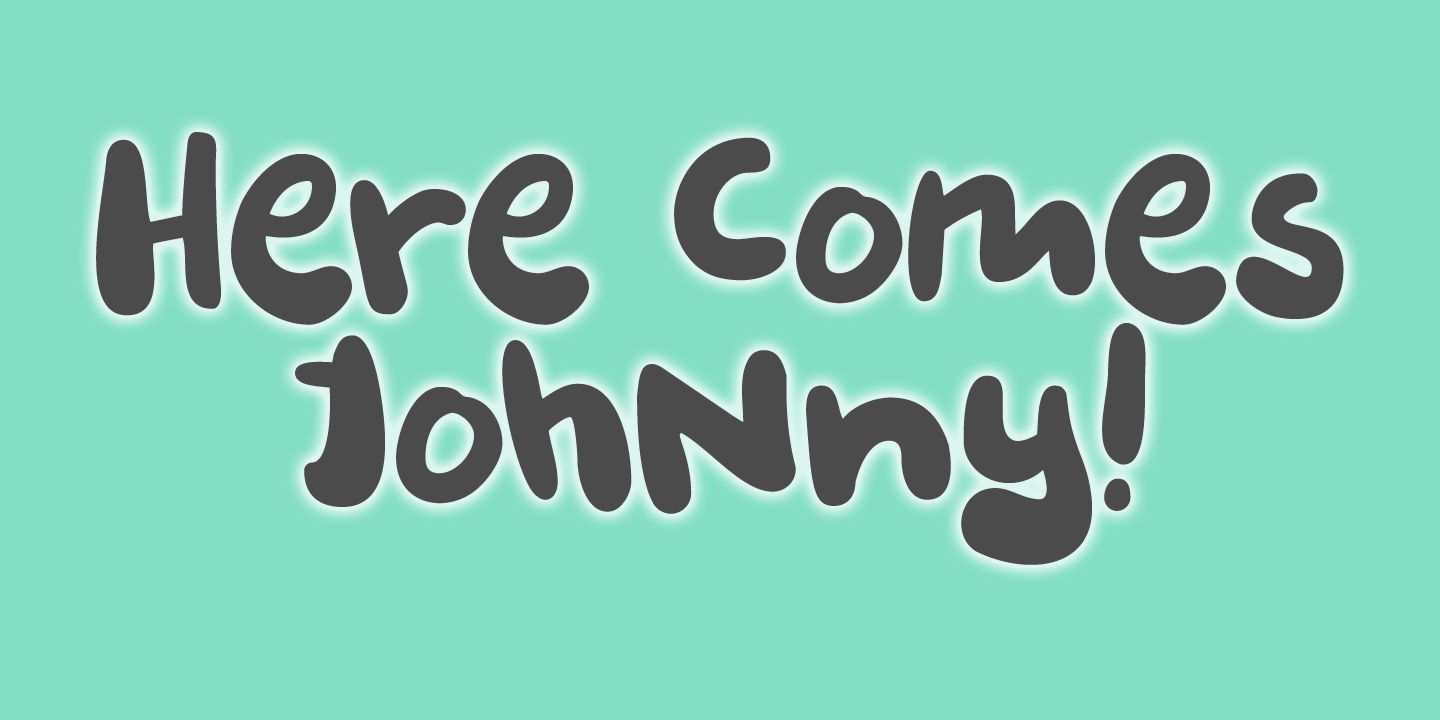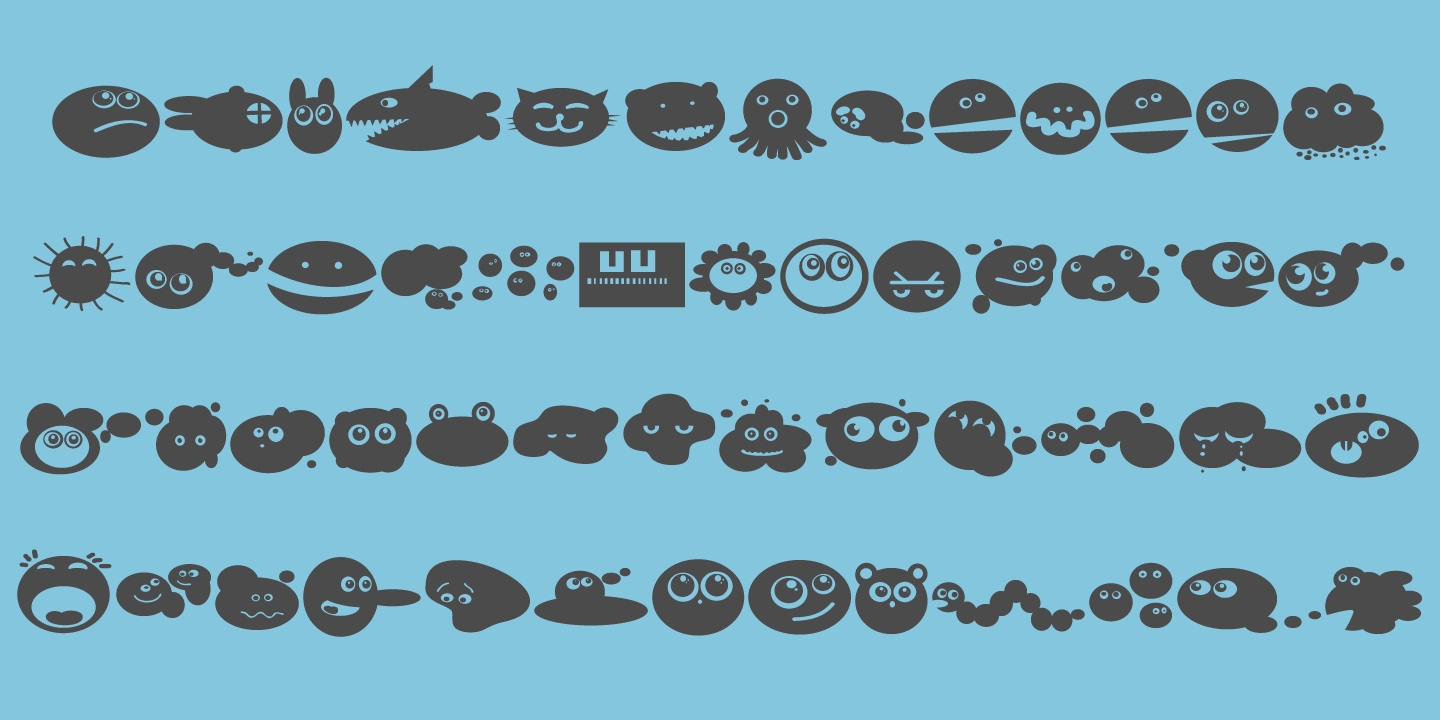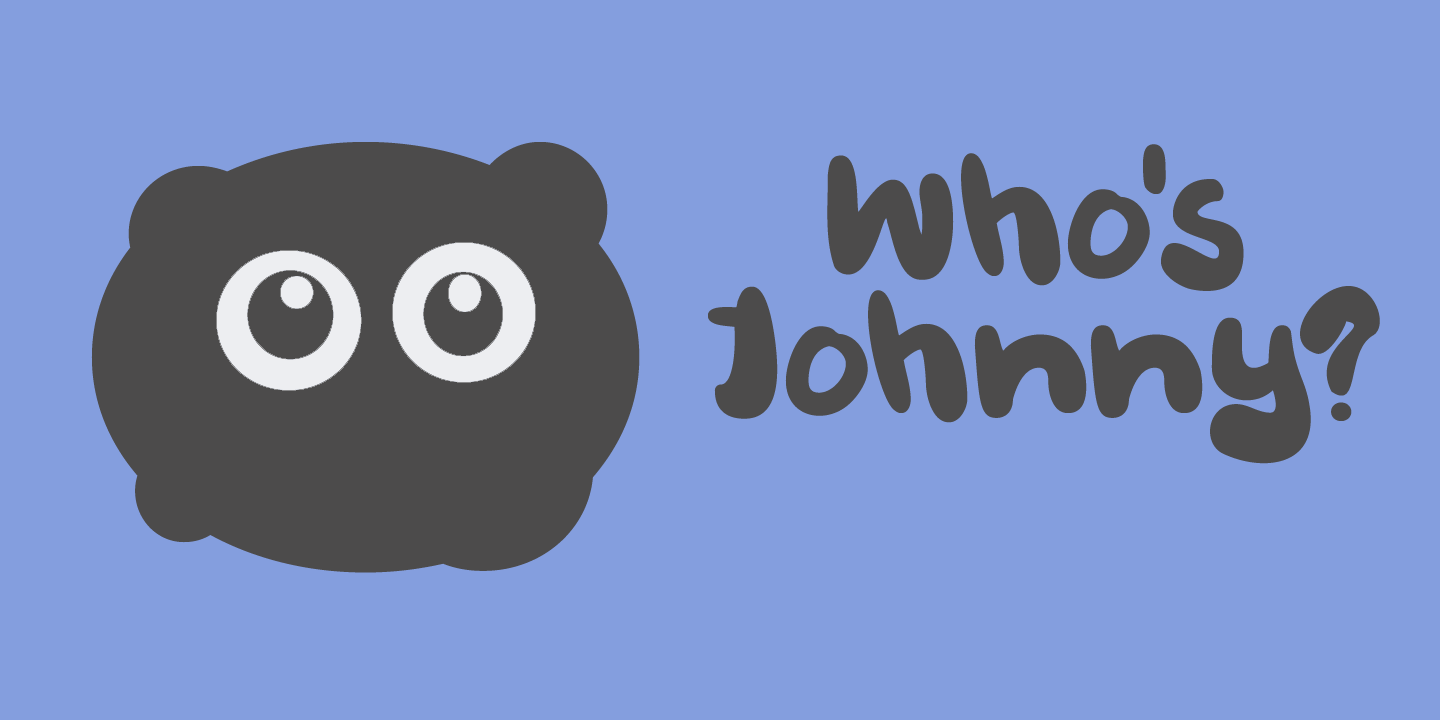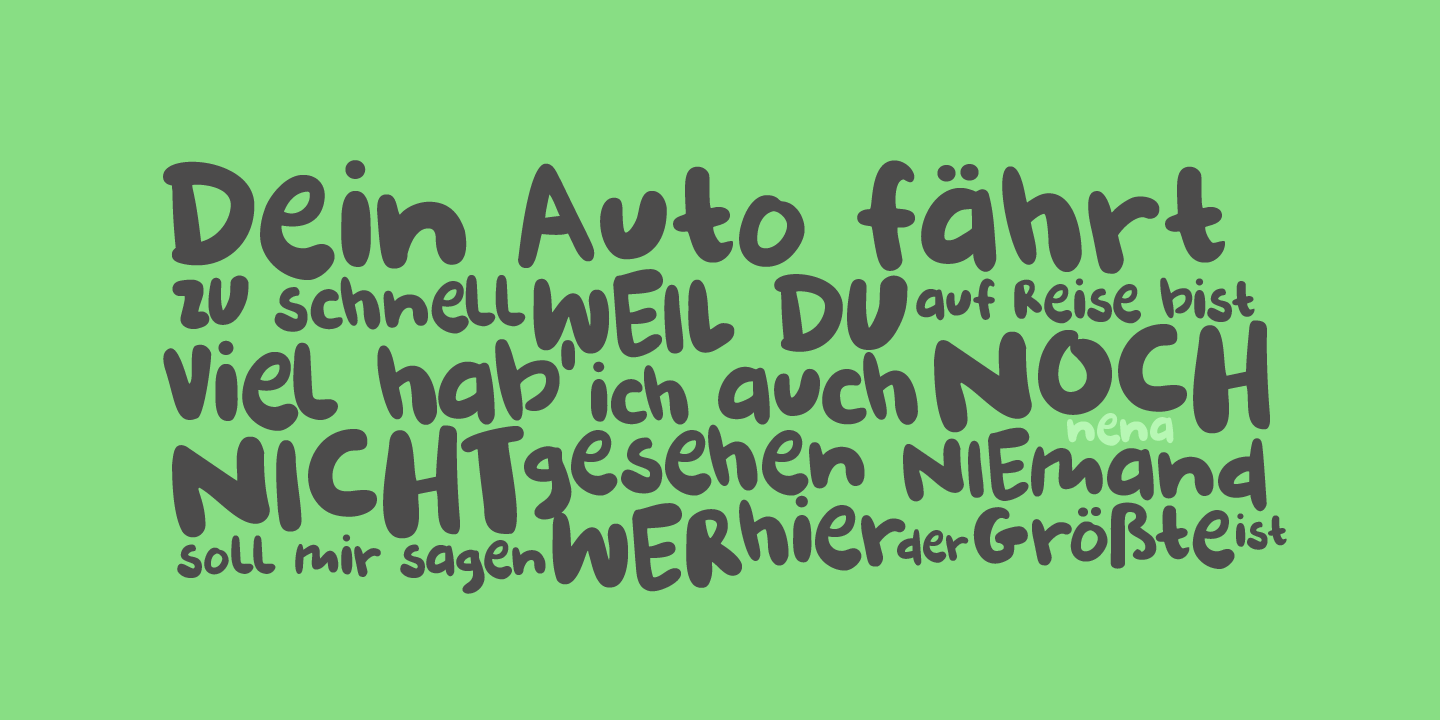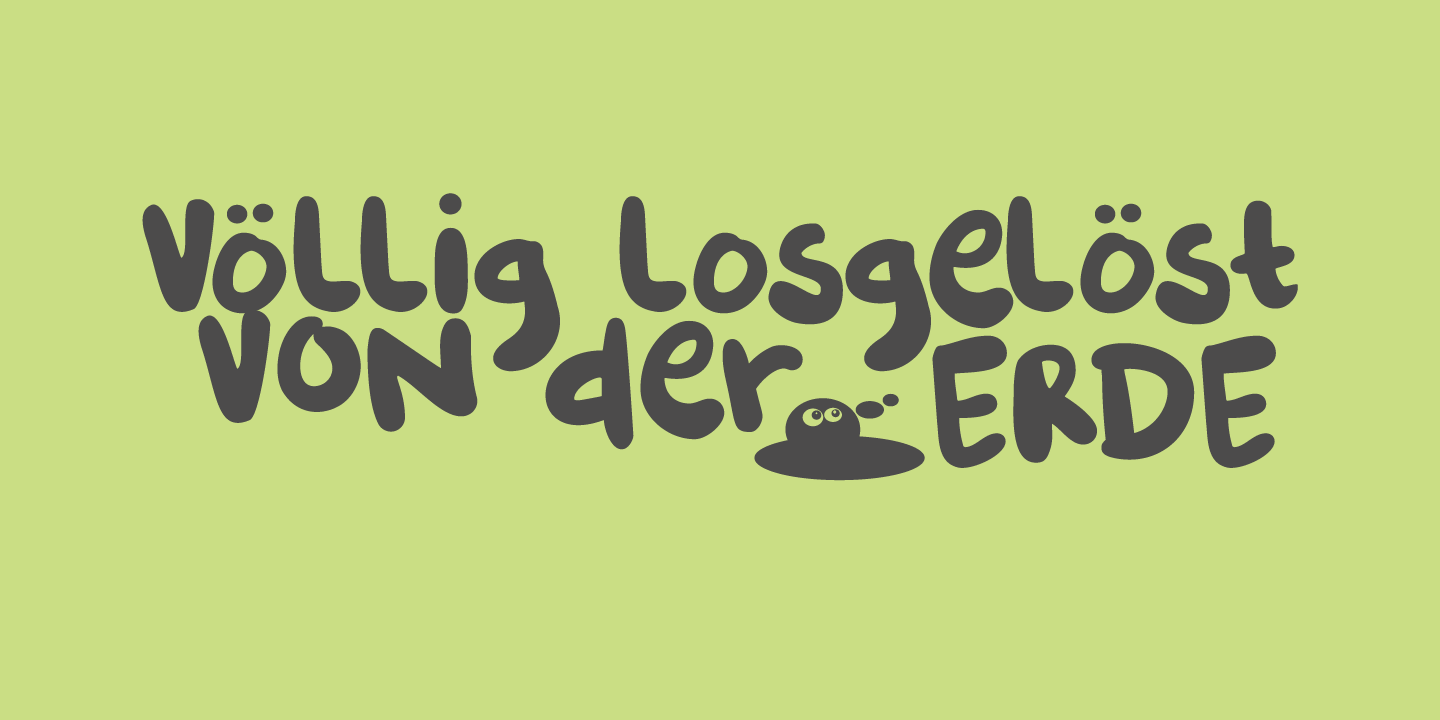
Burobu
Burobu, in case you’d like to know, means ‘blob’ in Japanese. I thought it was quite an appropriate name for this blob-like font! Burobu is a messy font and comes with a generous helping of jittery, jumping glyphs, exaggerated strokes and over-the-top arms, ties, bars and counters. Comes with an ultra-cute blob dingbat font and copious amounts of diacritics.